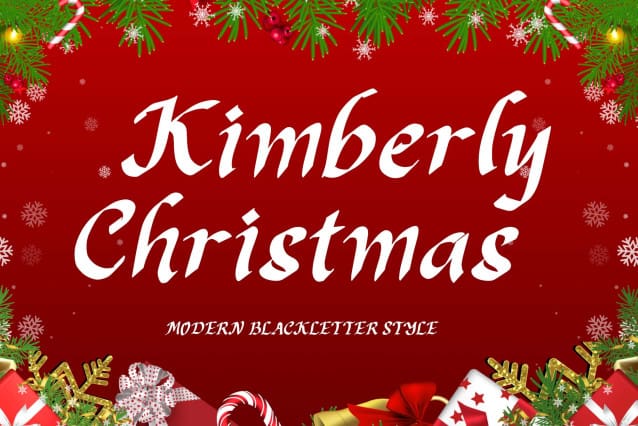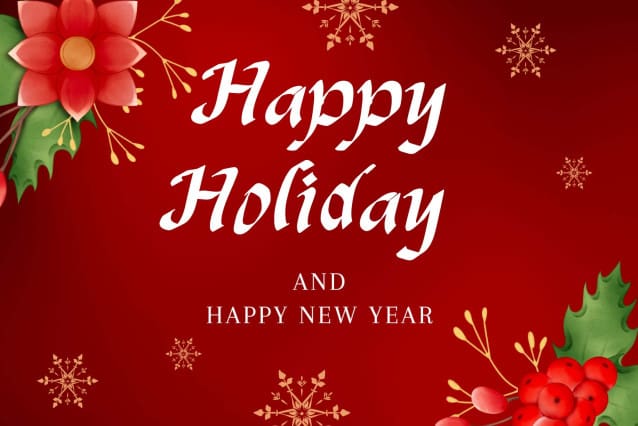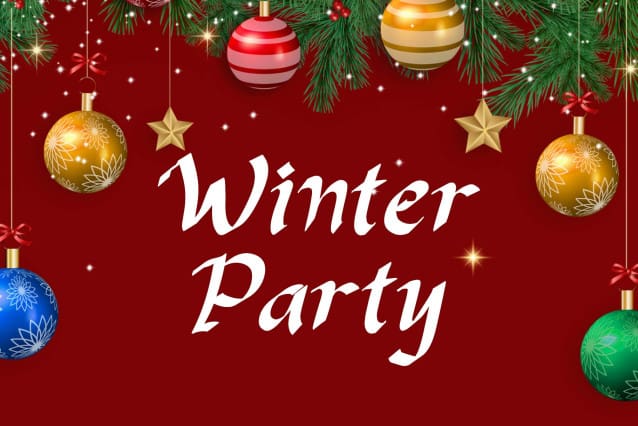
Kimberly Christmas Font
Kimberly Christmas Font is a unique and elegant blakcletter font. This font is equipped with uppercase, lowercase, numerals, punctuation, and multilingual support. Very suitable for Christmas, weddings, Valentine’s, winter, engagement, invitations, certificates, stickers, branding, logos, and others.